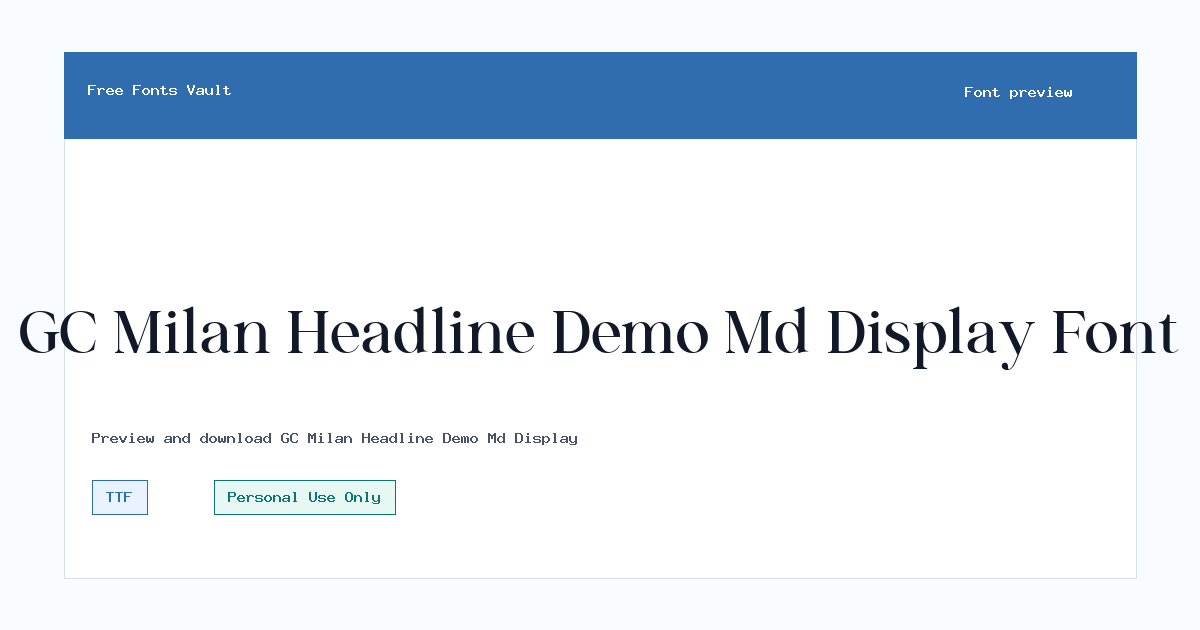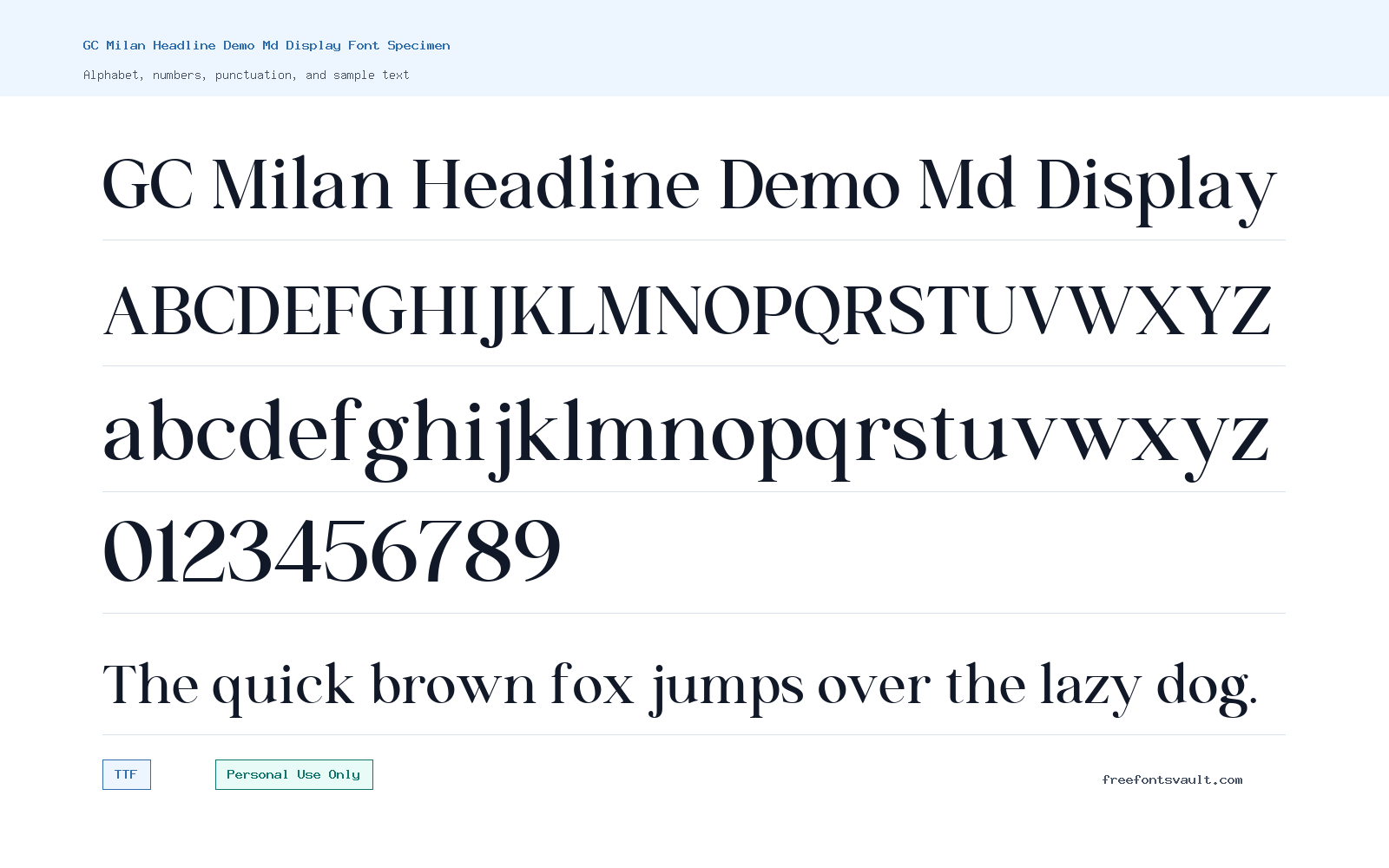
GC Milan Headline Demo Md Display
- Designer Zainaldi Ibrahim of Glyphonic
GC Milan Headline Demo Md Display is a headline-focused serif font from the GC Milan family, designed for short, polished display text rather than long reading blocks.
GC Milan Headline Demo Md Display has a composed editorial feel with serif details that suit titles, feature headings, nameplates, poster lines, and other places where a few words need a clear visual identity. The “Headline” and “Display” naming is a useful clue for how to approach it: use it where size and spacing can give the letterforms room, not as a small body-text font. The medium display weight should feel more present than a light style while staying less heavy than a bold headline cut, making it a practical middle option for refined title settings.
- Medium display serif style suited to headlines, titles, and short feature text
- Editorial-style headings, poster titles, website hero text, and brand presentation mockups
- Invitations, quote graphics, cover concepts, and short social media text where readability can be checked at larger sizes
The font is credited to Zainaldi Ibrahim of Glyphonic.
Set this font at larger sizes and keep lines short. If a headline feels crowded, increase letter spacing slightly or reduce the number of words. For layouts with longer text, use GC Milan Headline Demo Md Display only for the main title and choose a simpler companion font for paragraphs, captions, buttons, and small navigation labels.
What kind of font is GC Milan Headline Demo Md Display?
It is a display serif intended for headline-style use, such as titles, posters, cover text, and other short settings.
Can I use it for paragraph text?
It is better for short, larger text. For paragraphs or small UI text, pair it with a more neutral reading font.
Who designed GC Milan Headline Demo Md Display?
The font is credited to Zainaldi Ibrahim of Glyphonic.